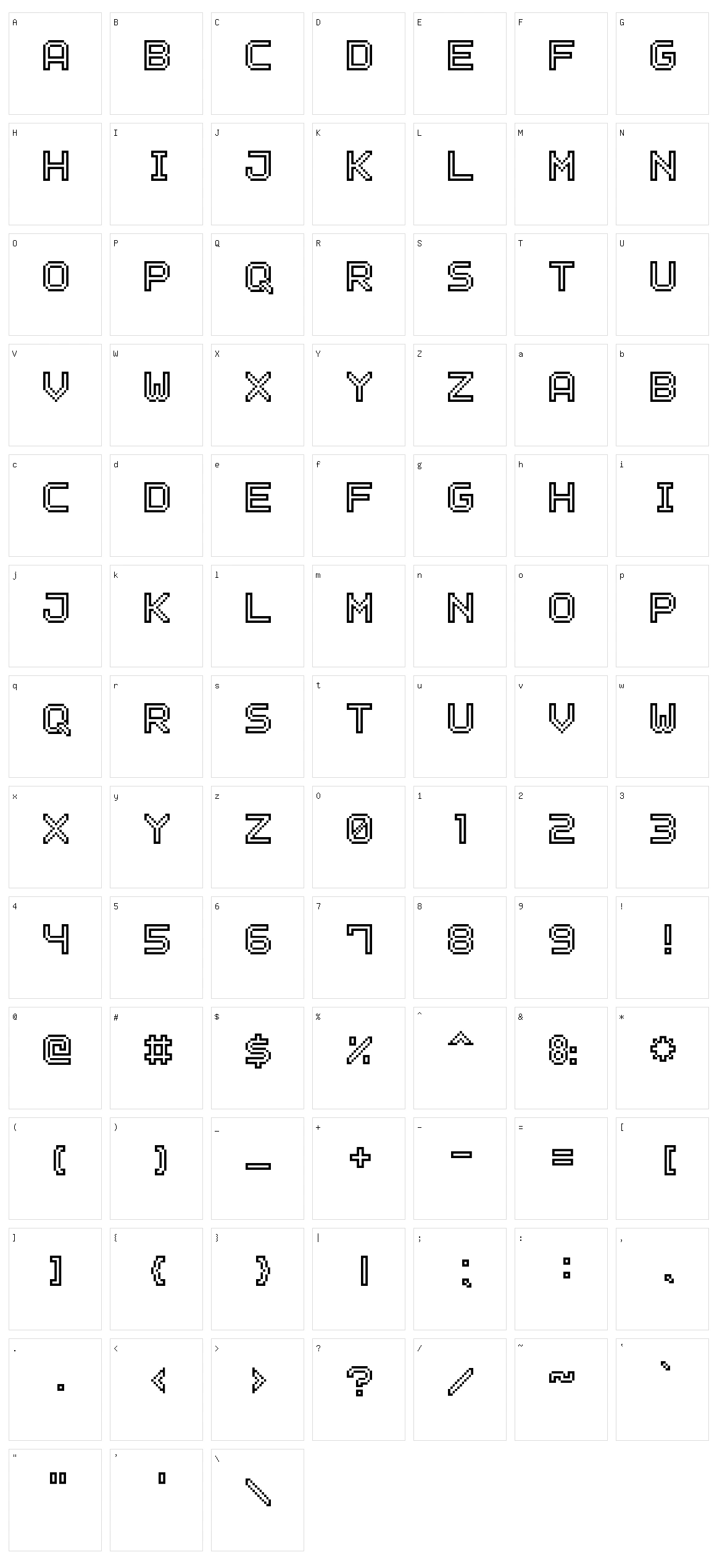
Outline Pixel 7
Designed by: Style-7
Original outline pixel font. Native size is 15 points. Solid font is included also.
Latin and Cyrillic code pages are supported.